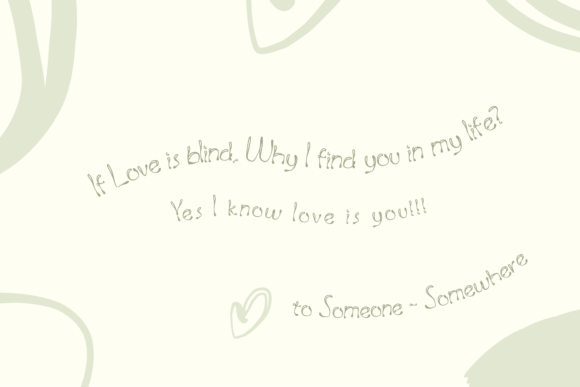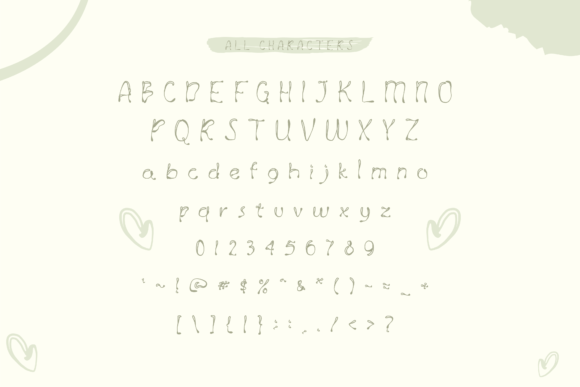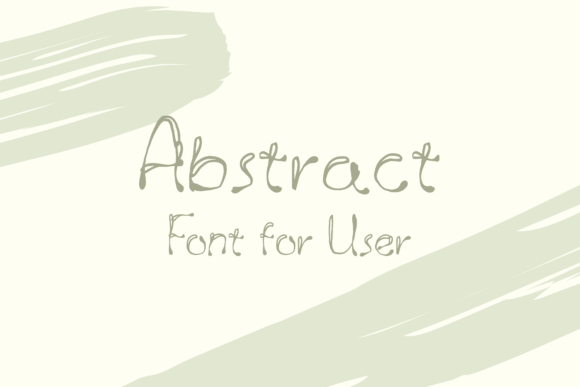
Introducing Carroy Font: The Ultimate Handwritten Companion for Designers and Crafters
In the world of typography, a font can make all the difference in the aesthetic and tone of a project. For designers, crafters, and digital artists, finding the perfect font that adds a personal touch can be a daunting task. However, with Carroy Font, your search can finally come to an end. Carroy is an abstract and distinct handwritten font designed to cater to a wide range of creative needs, from crafts and digital design to presentations and greeting cards.
The Versatility of Carroy Font
What sets Carroy apart from other fonts is its versatility. Its unique, handwritten style is abstract enough to stand out, yet familiar enough to be easily readable. This balance makes Carroy an excellent choice for various applications. Whether you’re working on a digital project, crafting handmade cards, or creating engaging presentations, Carroy can adapt to any style or theme. Its distinctiveness ensures that your work will have a personal touch that resonates with your audience.
Why Carroy Font Stands Out
- Abstract and Distinctive: Carroy’s abstract and distinctive style ensures that your projects stand out from the crowd. Its unique character set makes it perfect for projects that require a personal touch.
- Readability: Despite its abstract nature, Carroy maintains a high level of readability. This makes it suitable for both digital and print media, ensuring your message is conveyed clearly.
- Versatility: From digital designs and presentations to crafts and greeting cards, Carroy’s versatility knows no bounds. It’s a one-stop solution for all your typography needs.
- Emotional Connection: The handwritten nature of Carroy creates an emotional connection with the reader. It adds a human touch to your projects, making them more relatable and engaging.
Applications of Carroy Font
Carroy’s flexibility makes it suitable for a myriad of applications:
- Digital Design: Use Carroy in your website designs, social media graphics, and digital advertisements to add a personal and creative flair.
- Crafts: For crafters, Carroy can be used in a variety of handmade projects such as journals, scrapbooking, and DIY cards.
- Presentations: Elevate your presentations with Carroy, making them more engaging and memorable.
- Greeting Cards: Create personalized and heartfelt greeting cards for any occasion with Carroy’s unique and abstract style.
Tips for Using Carroy Font Effectively
To maximize the potential of Carroy Font, consider the following tips:
- Mix and Match: Don’t be afraid to experiment with different sizes, colors, and styles to create visual interest.
- Pair with Other Fonts: Carroy can be paired with other fonts to create a contrast that highlights its unique features.
- Consider the Context: Ensure that Carroy aligns with the tone and theme of your project to maintain consistency.
Carroy Font is more than just a typeface; it’s a creative companion that can elevate your projects to new heights. Its abstract and distinct handwritten style, combined with its versatility and readability, makes it an indispensable tool for designers and crafters alike. Whether you’re creating digital content, crafting handmade items, or designing presentations, Carroy has the potential to become your favorite go-to font. Embrace the uniqueness of Carroy and let your creativity shine through your projects.